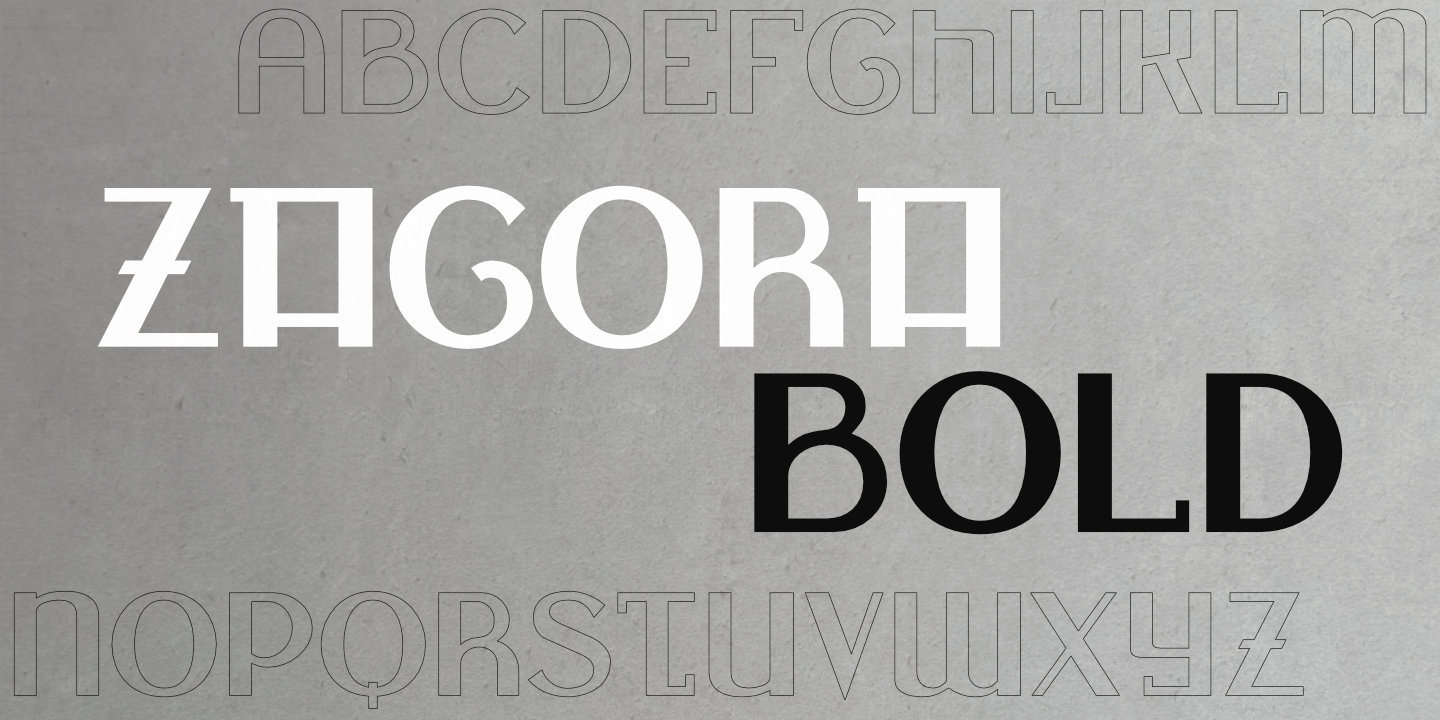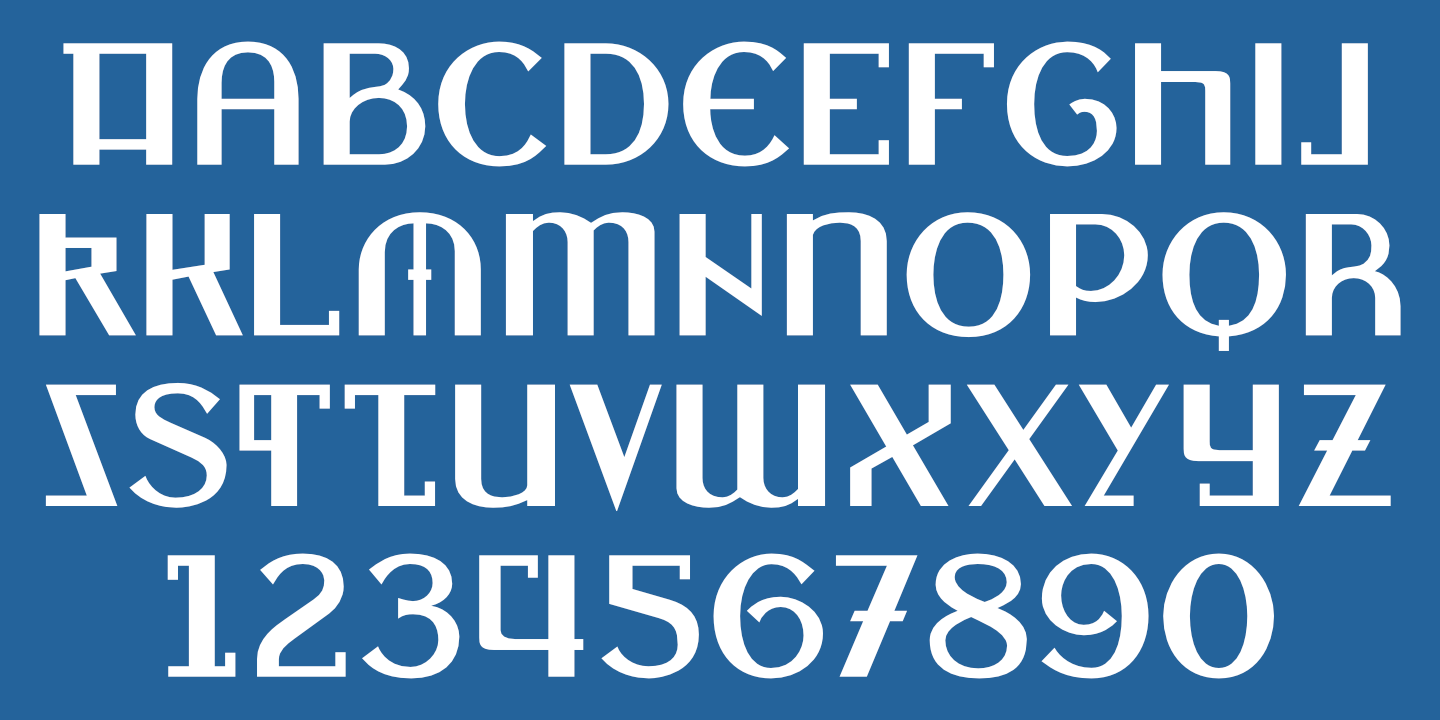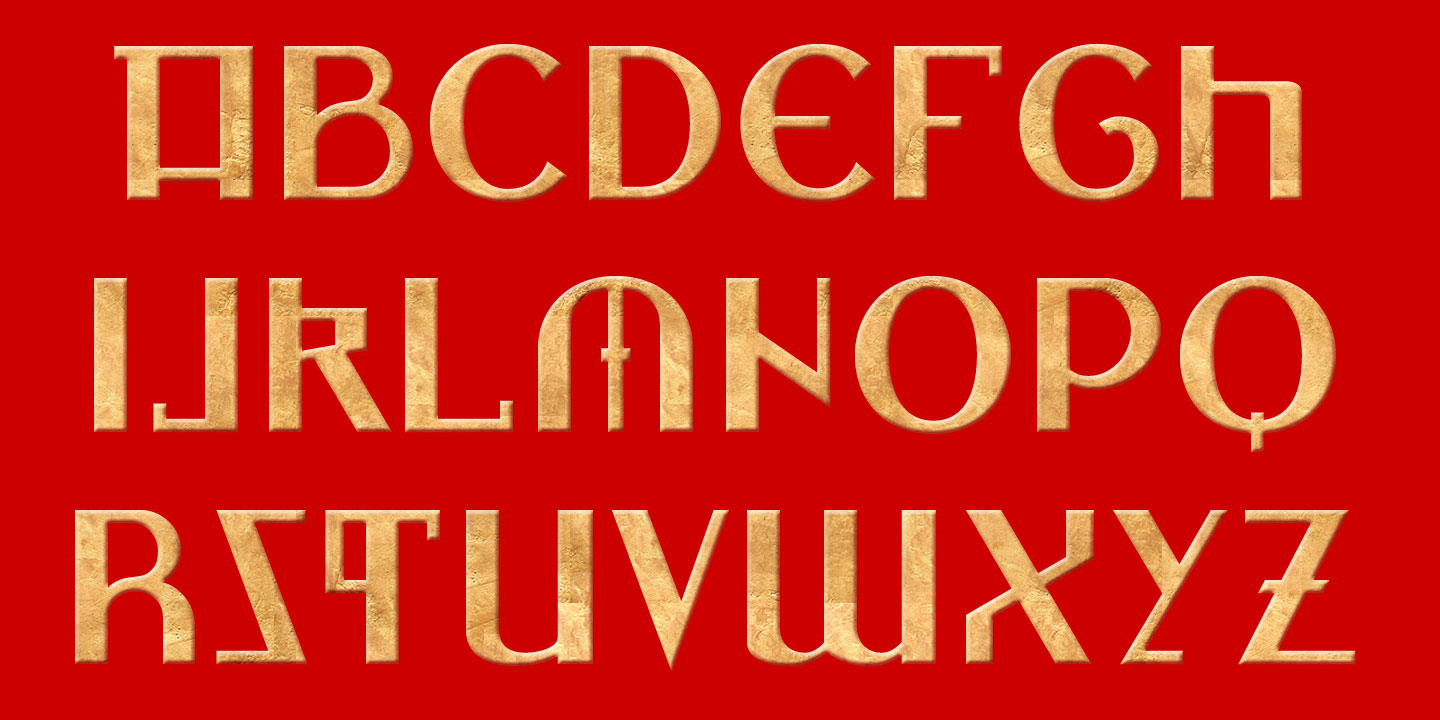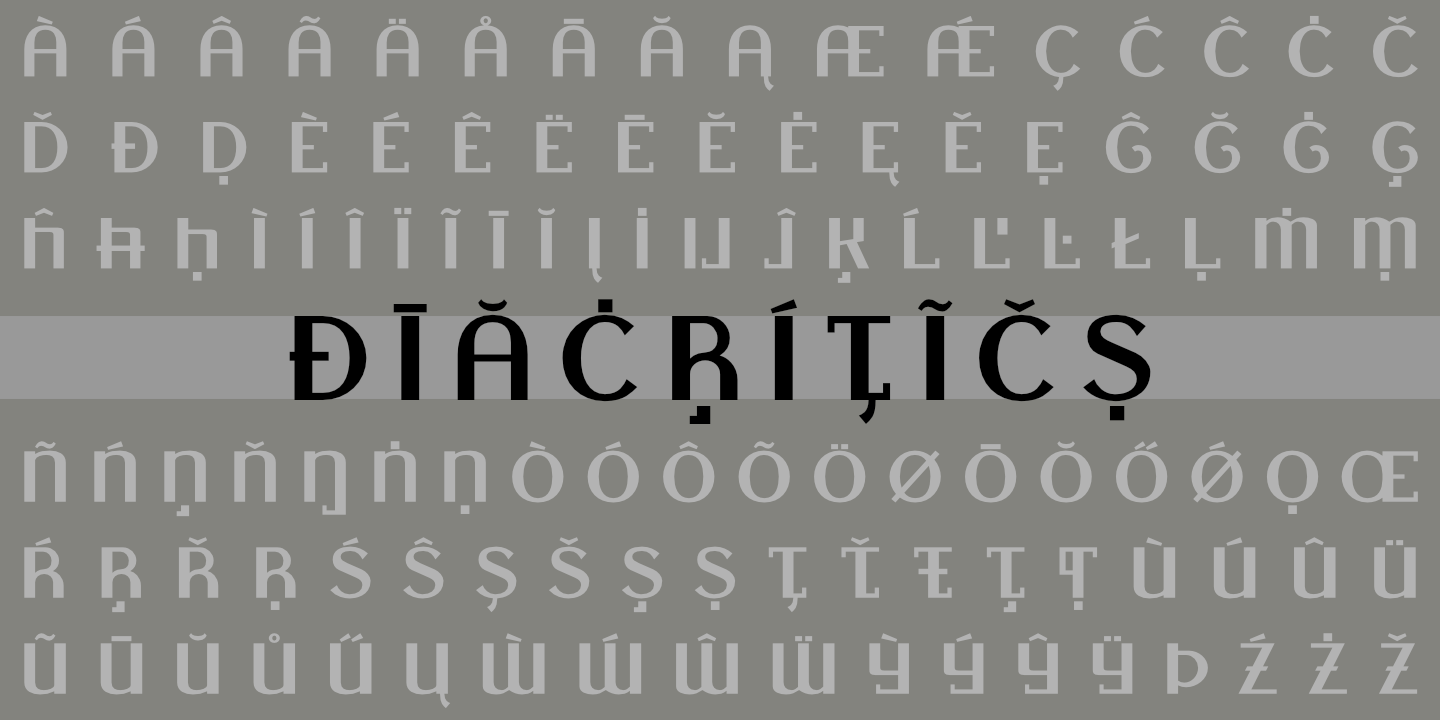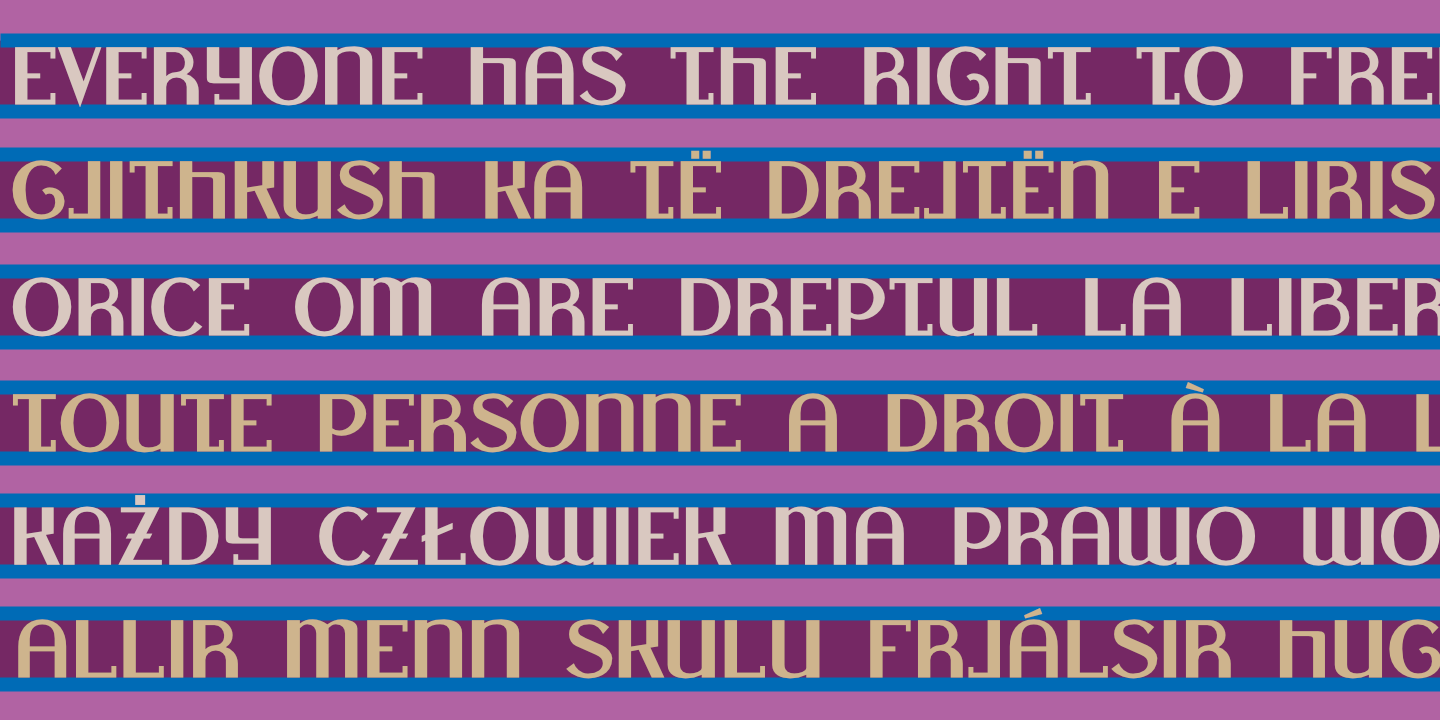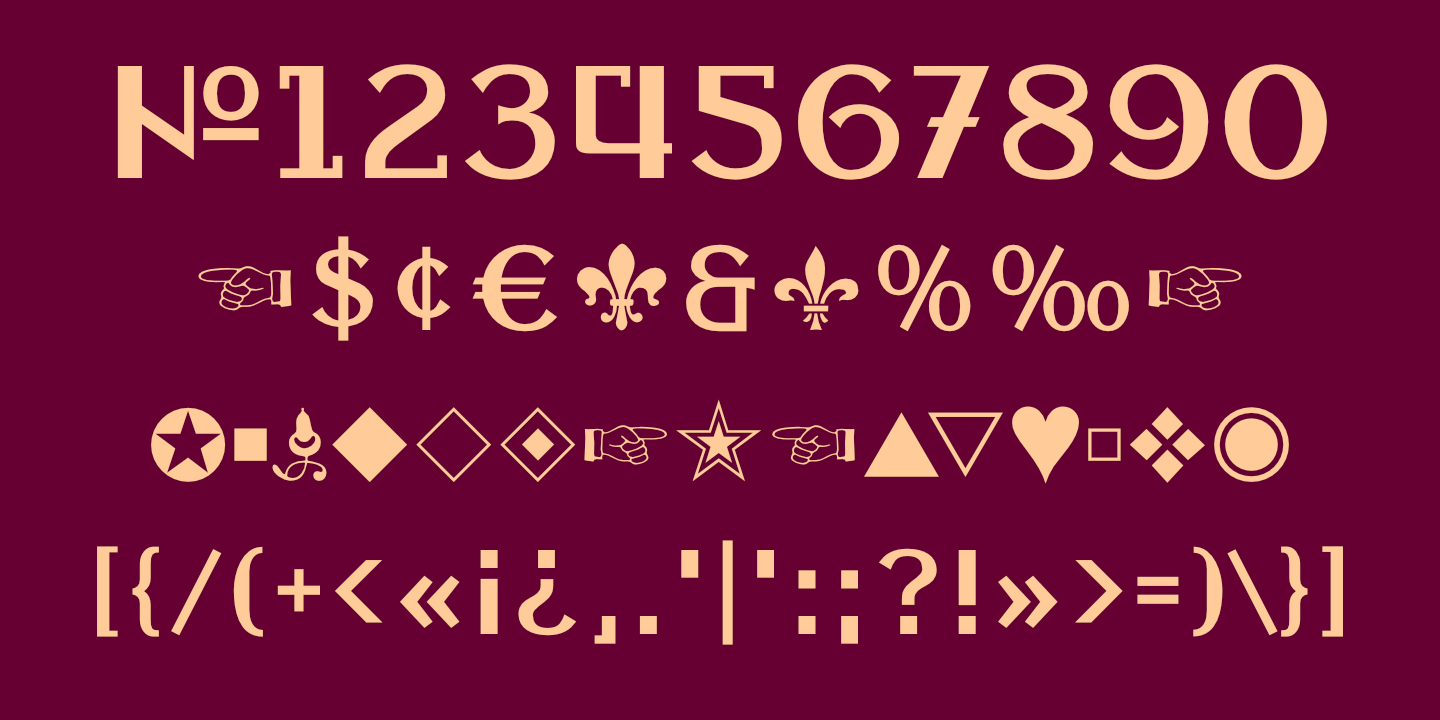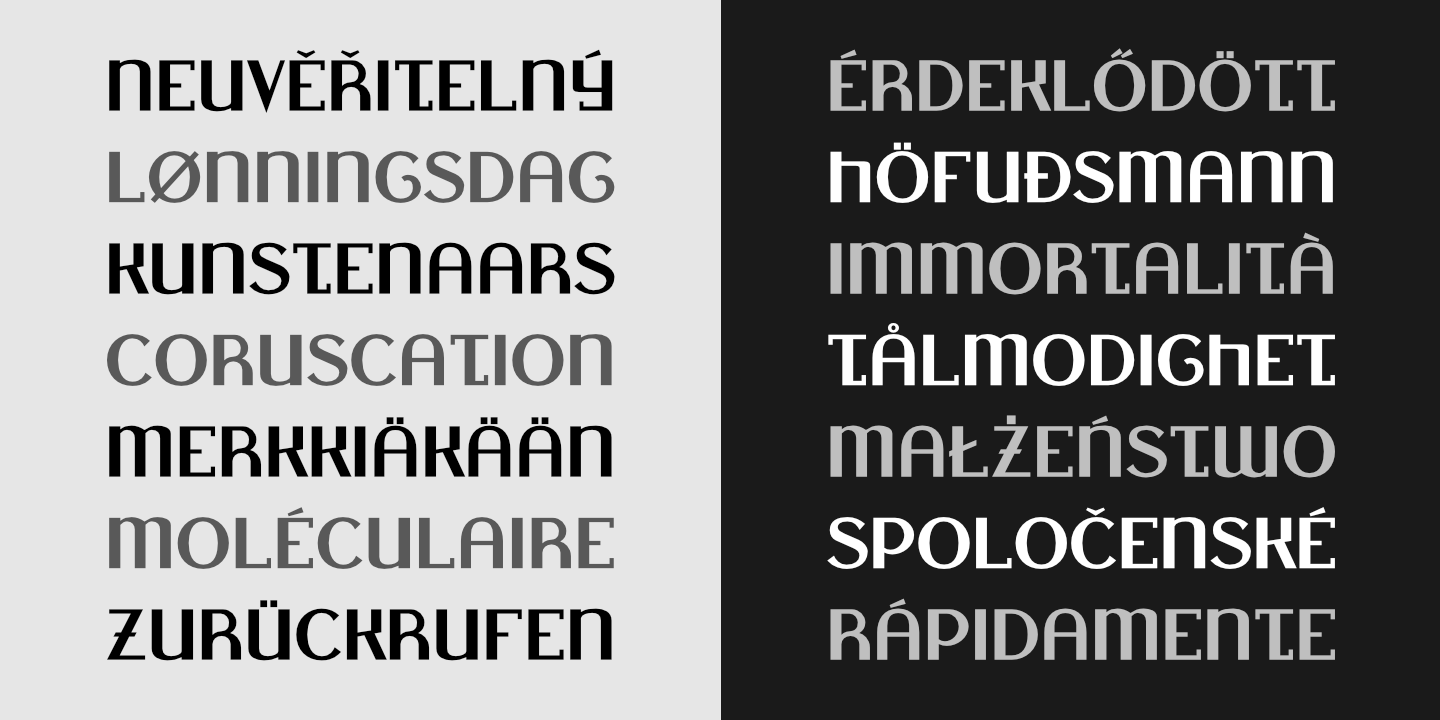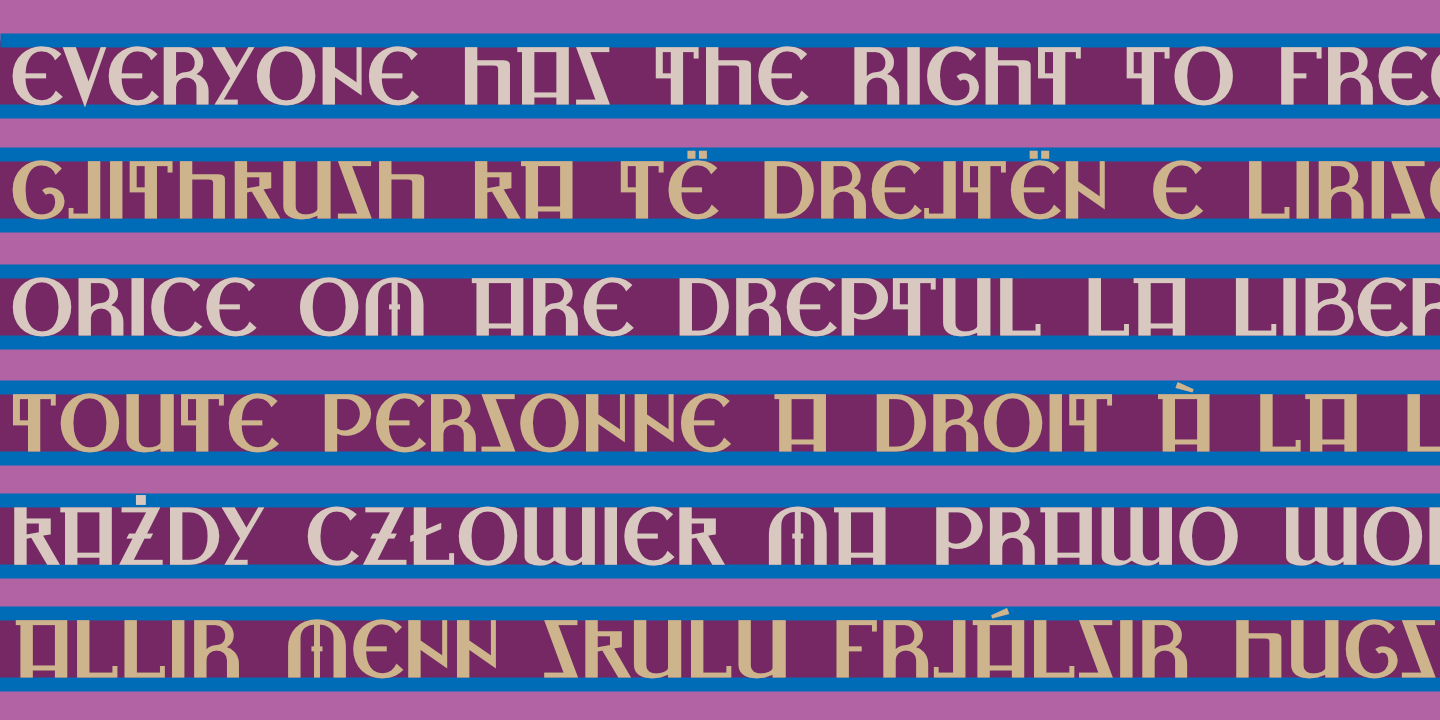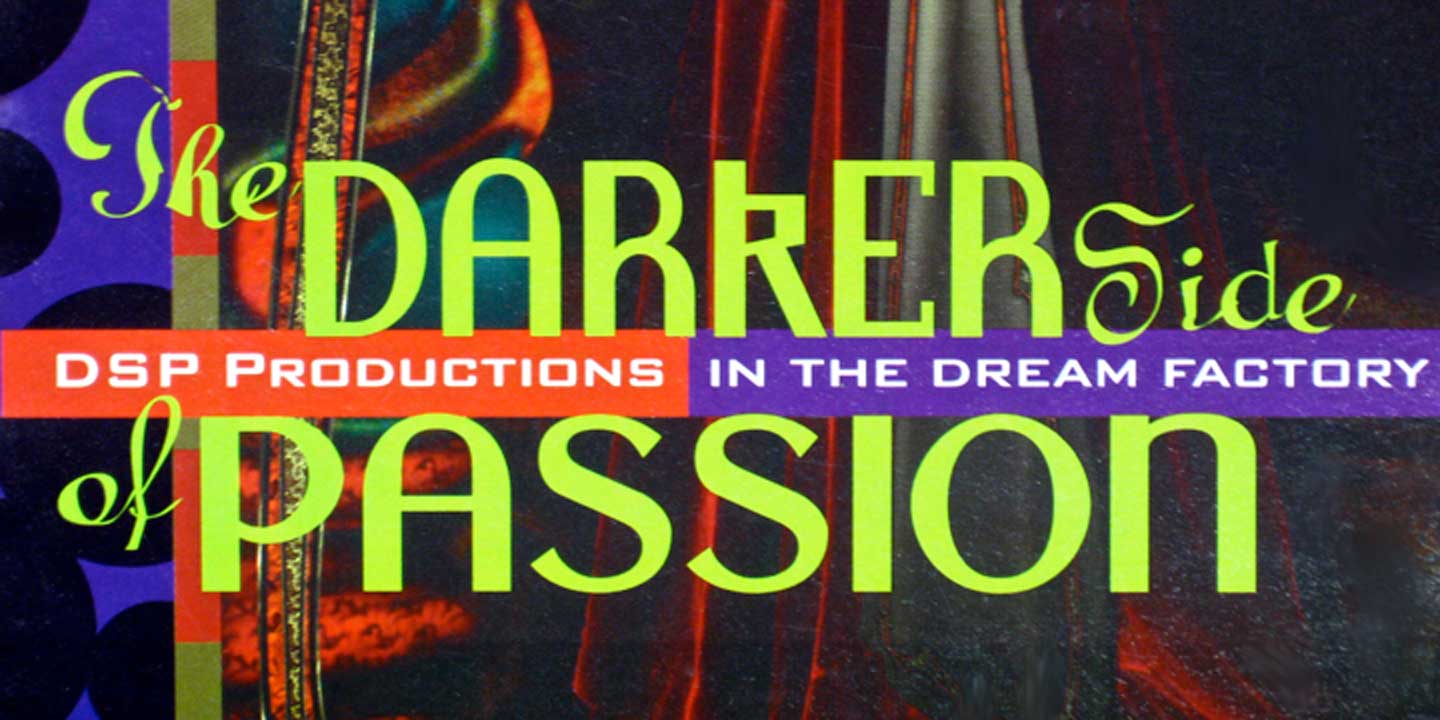
Zagora Bold: Basic Latin alphabet. See Glyphs for details.
Zagora Bold: Basic alphabet with alternates, plus numerals.
Zagora Bold: Numerals, basic punctuation, currency symbols, and a sampling of ornaments.
Zagora Bold supports many European languages. See Glyphs for details. Lowercase above, all caps below.
Zagora Bold used on the cover of a local weekly newspaper (above and below).